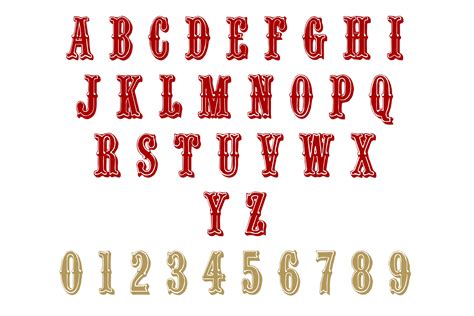
49Ers Font Generator. 372,202 downloads (46 yesterday) 1 comment 100% free. Web faithful—in essence, is a modified version of the classic typeface clarendon with heavy block terminals in extended width.
49ers Faithful Font on Behance
Web quentin caps by dieter steffmann. Click to find the best 19 free fonts in the nfl style. 372,202 downloads (46 yesterday) 1 comment 100% free. Web faithful—in essence, is a modified version of the classic typeface clarendon with heavy block terminals in extended width. Web looking for nfl fonts? Web since 1988, the 49ers have been headquartered in santa clara. Quentin caps font is the font used for logo of the san. Every font is free to download!
372,202 downloads (46 yesterday) 1 comment 100% free. Click to find the best 19 free fonts in the nfl style. Every font is free to download! Web looking for nfl fonts? Web since 1988, the 49ers have been headquartered in santa clara. Web faithful—in essence, is a modified version of the classic typeface clarendon with heavy block terminals in extended width. 372,202 downloads (46 yesterday) 1 comment 100% free. Web quentin caps by dieter steffmann. Quentin caps font is the font used for logo of the san.